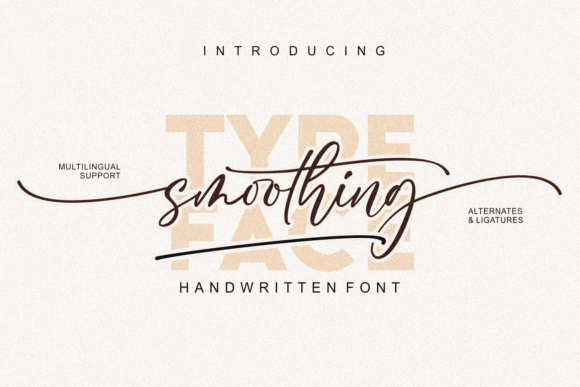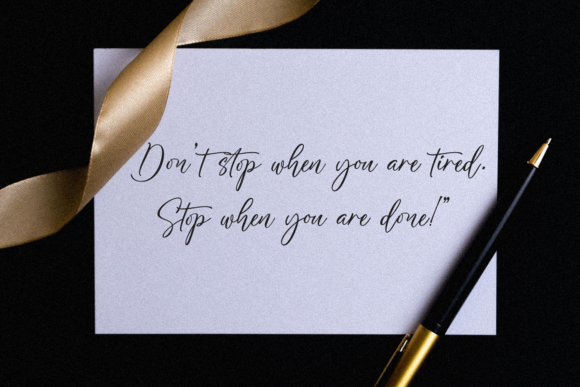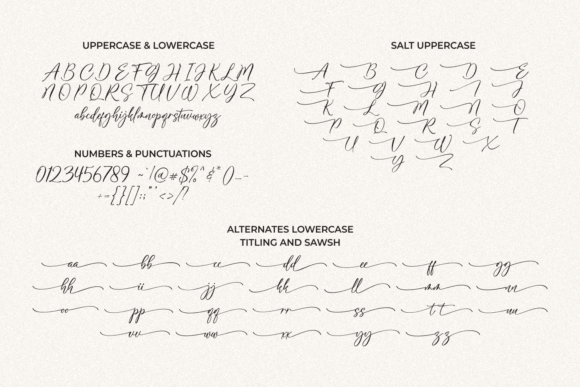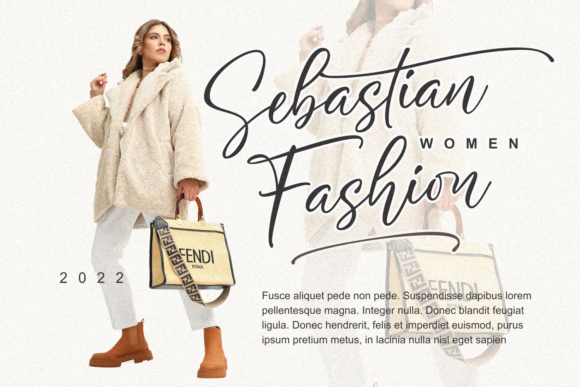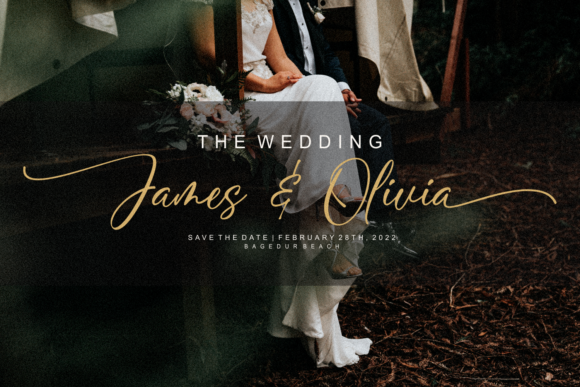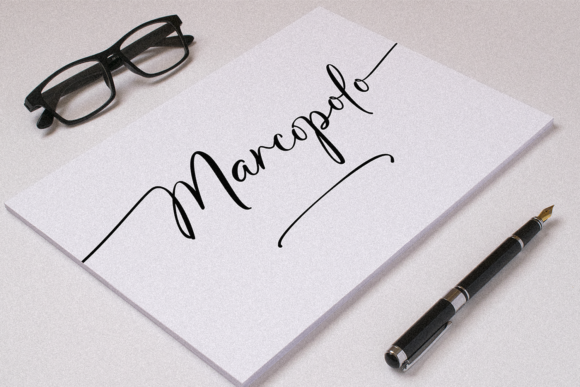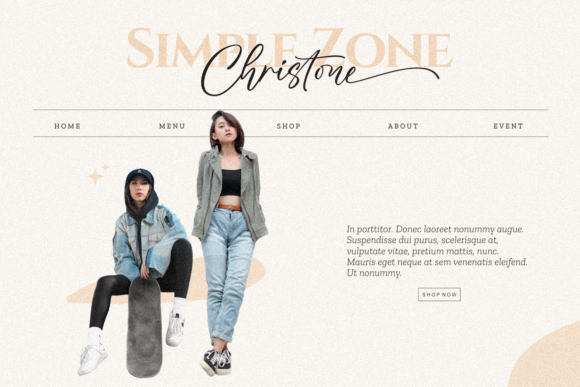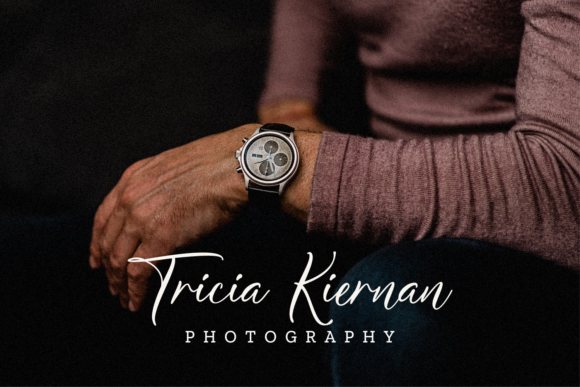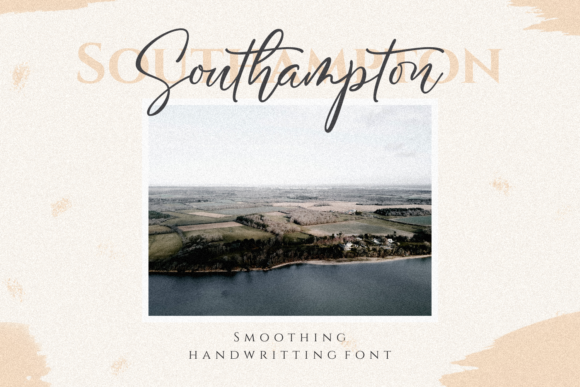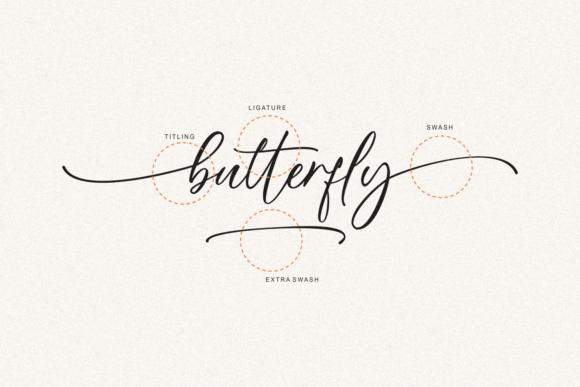
Smoothing Font
About Smoothing Font
Smoothing is a stylish handwritten font featuring a delicate flow. It is suitable for branding, signature, wedding invitation, promotion, product packaging, and various other needs. Smoothing is PUA encoded which means you can access all of the glyphs and swashes with ease!